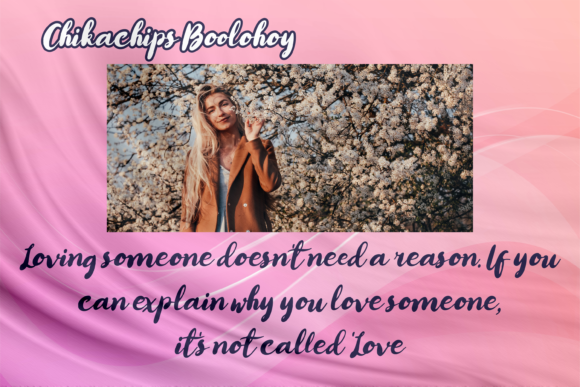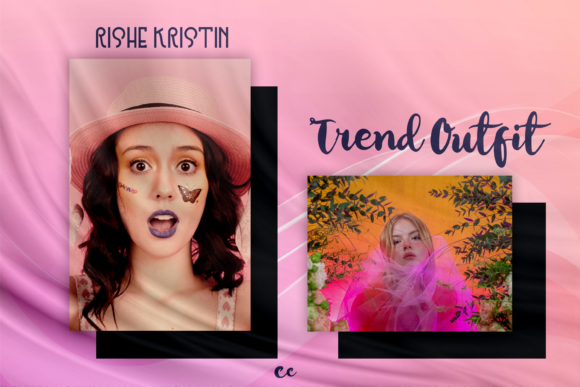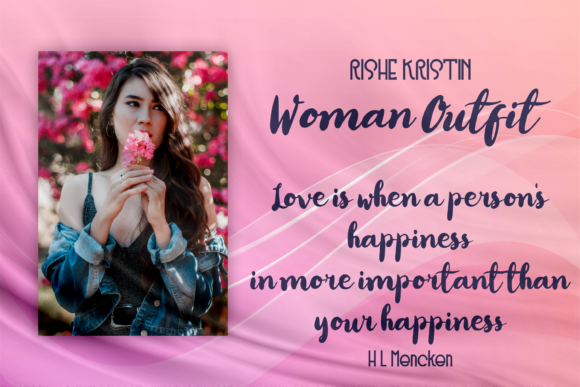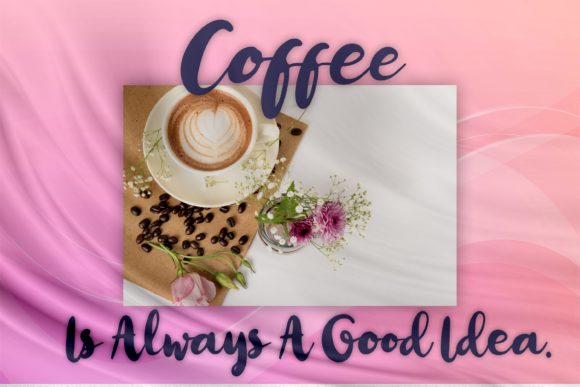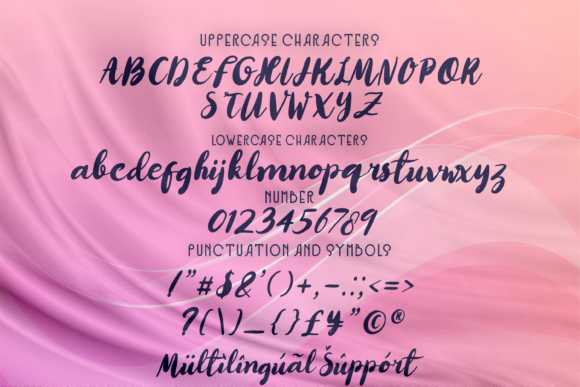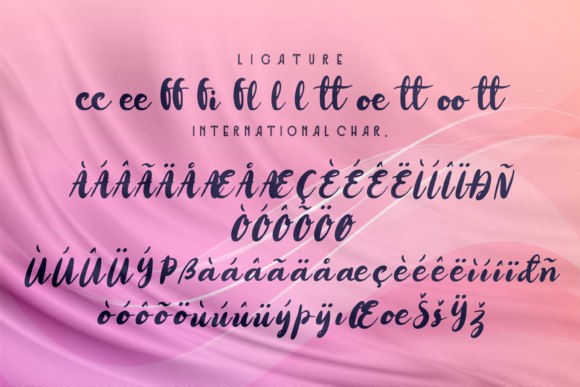
Introducing Chikachips Boolohoy Font: Add a Touch of Whimsy to Your Designs
Are you tired of using the same old fonts in your designs? Do you want to add a touch of personality and whimsy to your creative projects? Look no further than the Chikachips Boolohoy font! This lovely script font features charming, playful characters that seem to dance along the baseline, making it perfect for designers and crafters looking to add a unique touch to their work.
What is Chikachips Boolohoy Font?
Chikachips Boolohoy is a script font that boasts a carefree and lively feel. Its characters are designed to be playful and fun, with a sense of movement and energy that is sure to capture the attention of your audience. Whether you’re working on a branding project, a craft tutorial, or a digital design, this font is sure to add a touch of magic to your work.
Key Features of Chikachips Boolohoy Font
- Playful Characters: The Chikachips Boolohoy font features characters that are full of personality and charm. Each letter is designed to be unique and fun, with a sense of movement and energy.
- Script Style: This font is a script font, which means it’s perfect for adding a touch of elegance and sophistication to your designs.
- Baseline Flow: The characters in this font seem to dance along the baseline, creating a sense of movement and flow that’s sure to capture the attention of your audience.
- Versatile: Chikachips Boolohoy is a versatile font that can be used in a variety of design projects, from branding and advertising to crafting and digital design.
How to Use Chikachips Boolohoy Font in Your Designs
Using the Chikachips Boolohoy font in your designs is easy! Here are a few tips to get you started:
- Pair it with a bold font: Pair Chikachips Boolohoy with a bold font to create a striking contrast that’s sure to grab attention.
- Use it for headings: This font is perfect for headings and titles, where its playful and energetic feel can really shine.
- Add it to your branding: Use Chikachips Boolohoy as part of your branding identity to add a touch of personality and whimsy to your logo and marketing materials.
- Experiment with colors: Don’t be afraid to experiment with different colors and textures to really make this font pop.
Benefits of Using Chikachips Boolohoy Font
So why should you use the Chikachips Boolohoy font in your designs? Here are just a few benefits:
- Unique and eye-catching: This font is sure to grab attention and make your designs stand out from the crowd.
- Playful and fun: Chikachips Boolohoy adds a touch of personality and whimsy to your designs, making them more engaging and enjoyable to look at.
- Versatile: This font can be used in a wide range of design projects, from digital design to crafting and more.
In conclusion, the Chikachips Boolohoy font is a lovely script font that’s perfect for designers and crafters looking to add a touch of whimsy and personality to their work. With its playful characters, script style, and baseline flow, this font is sure to make your designs stand out from the crowd. So why not give it a try and see the difference it can make in your designs?
Here are a few final tips for designers and crafters looking to get the most out of the Chikachips Boolohoy font:
- Experiment with different sizes: Try using the font in different sizes to see how it looks in various contexts.
- Play with colors and textures: Don’t be afraid to experiment with different colors and textures to really make this font pop.
- Pair it with other fonts: Try pairing Chikachips Boolohoy with other fonts to create a unique and eye-catching combination.
- Have fun: Most importantly, have fun with the font! Chikachips Boolohoy is a playful and fun font, so don’t be afraid to get creative and try new things.